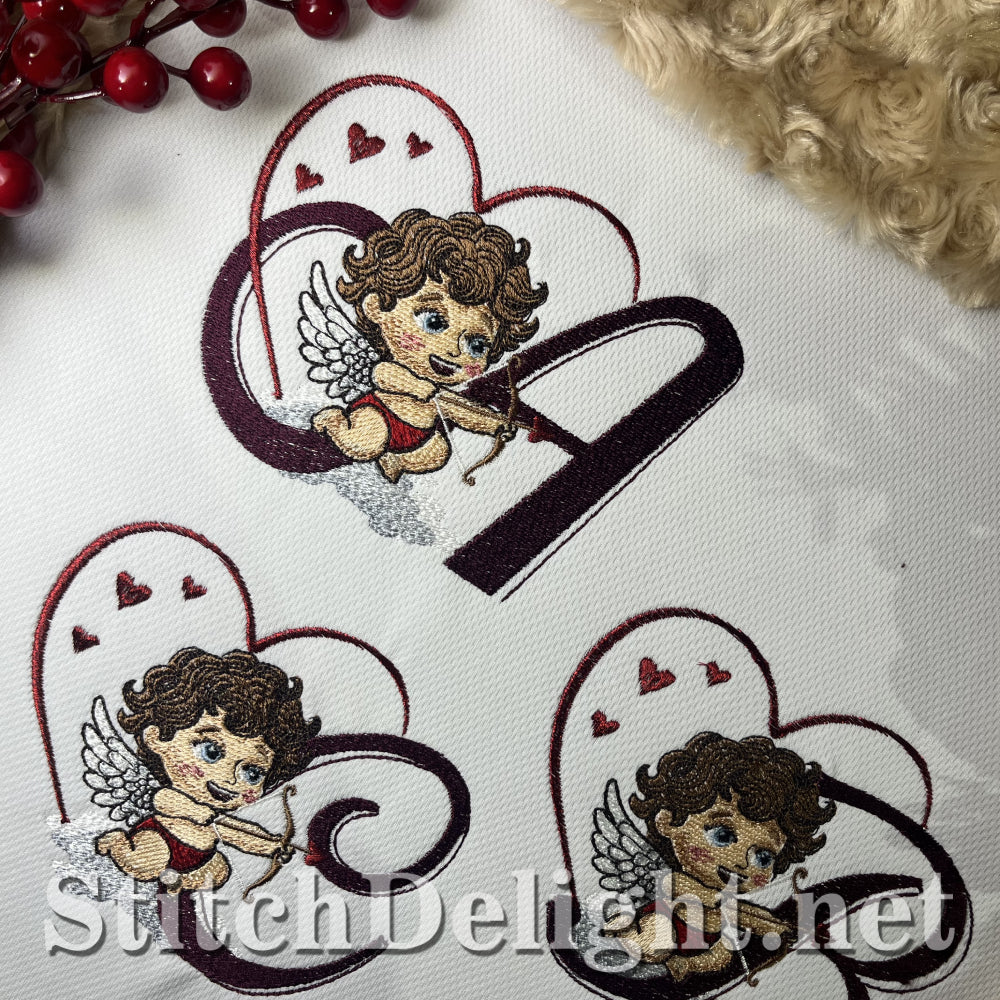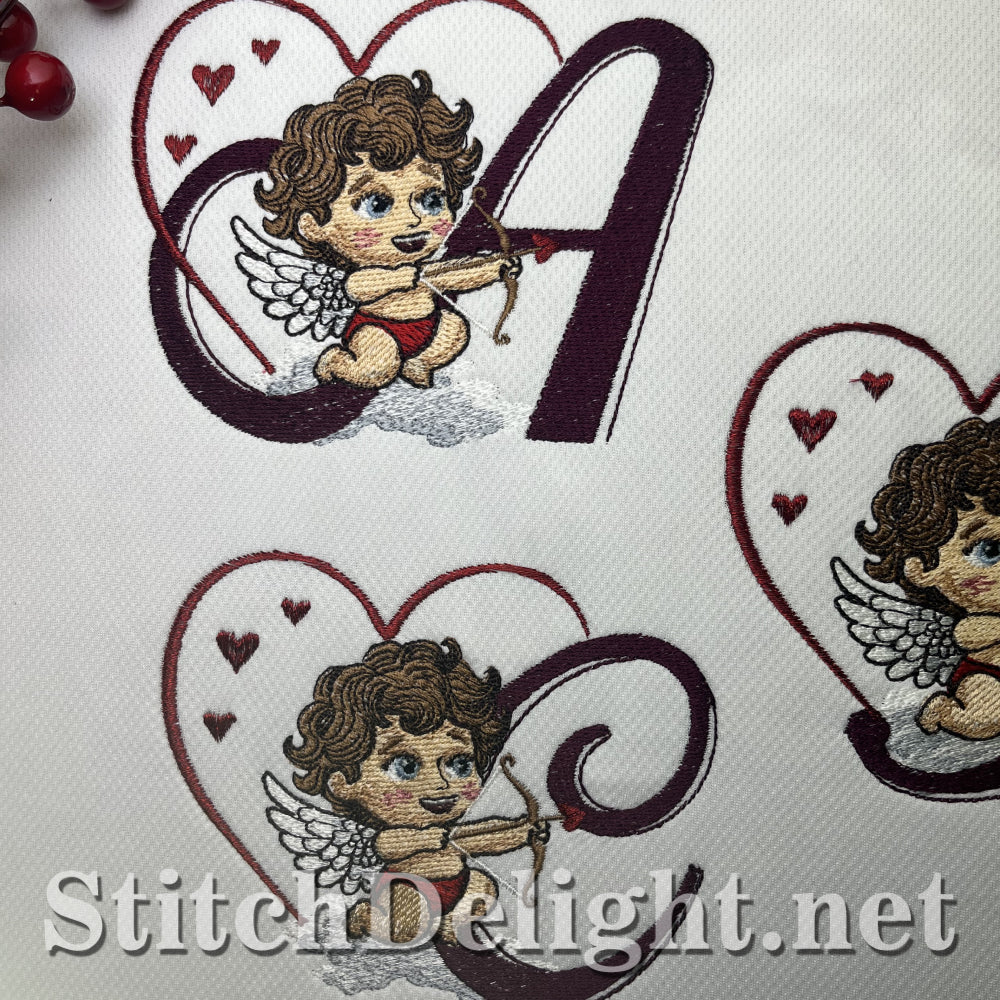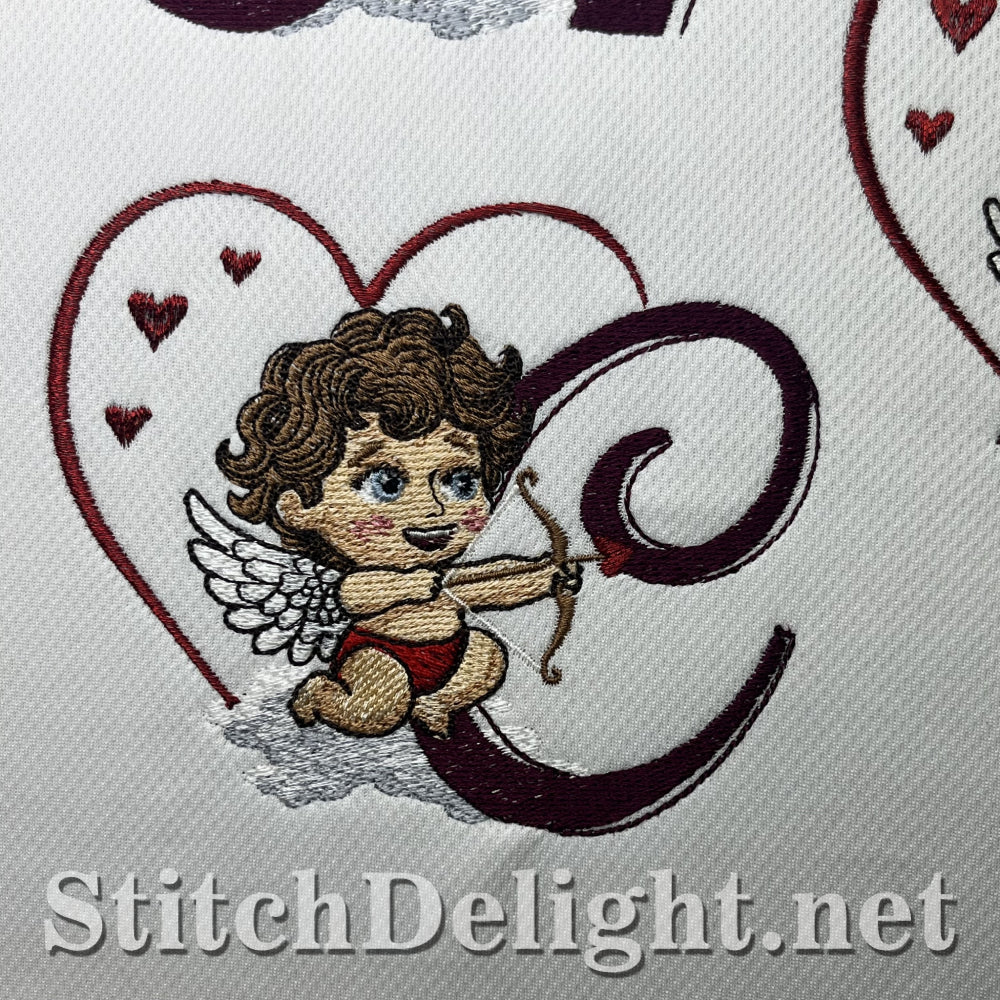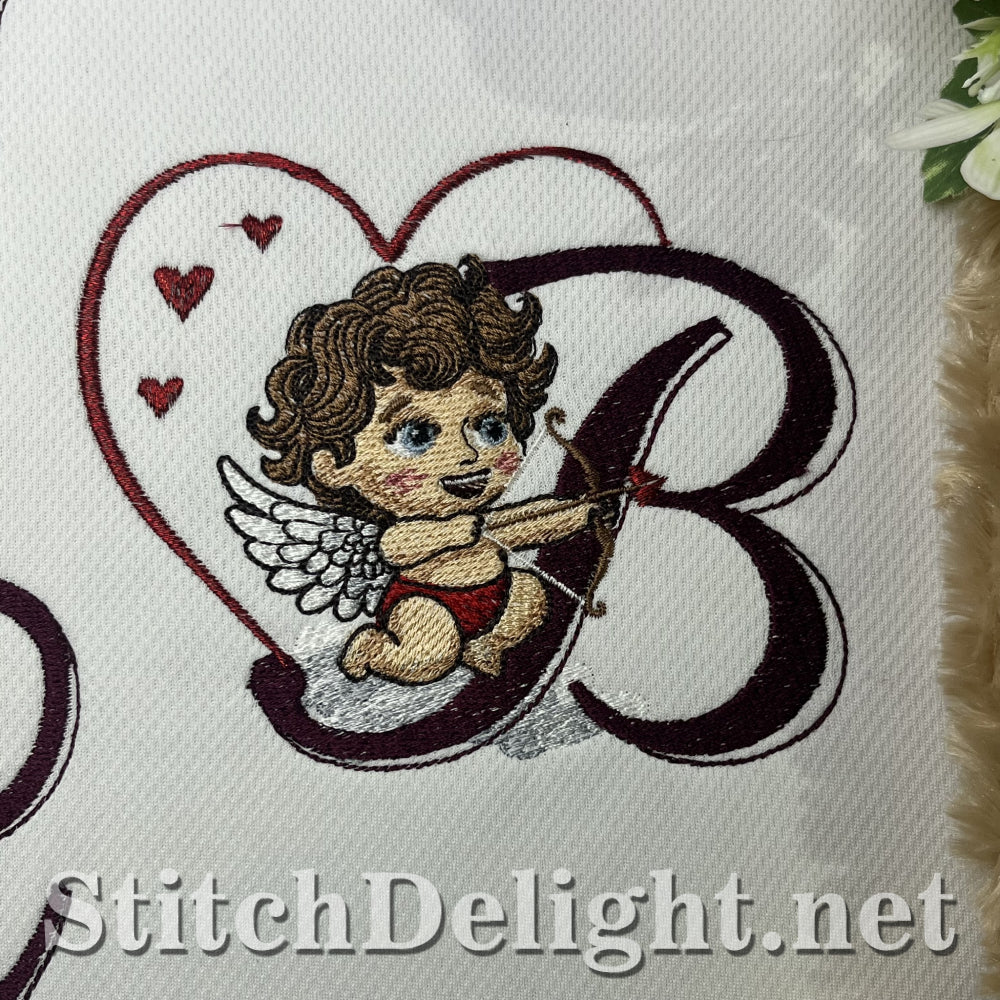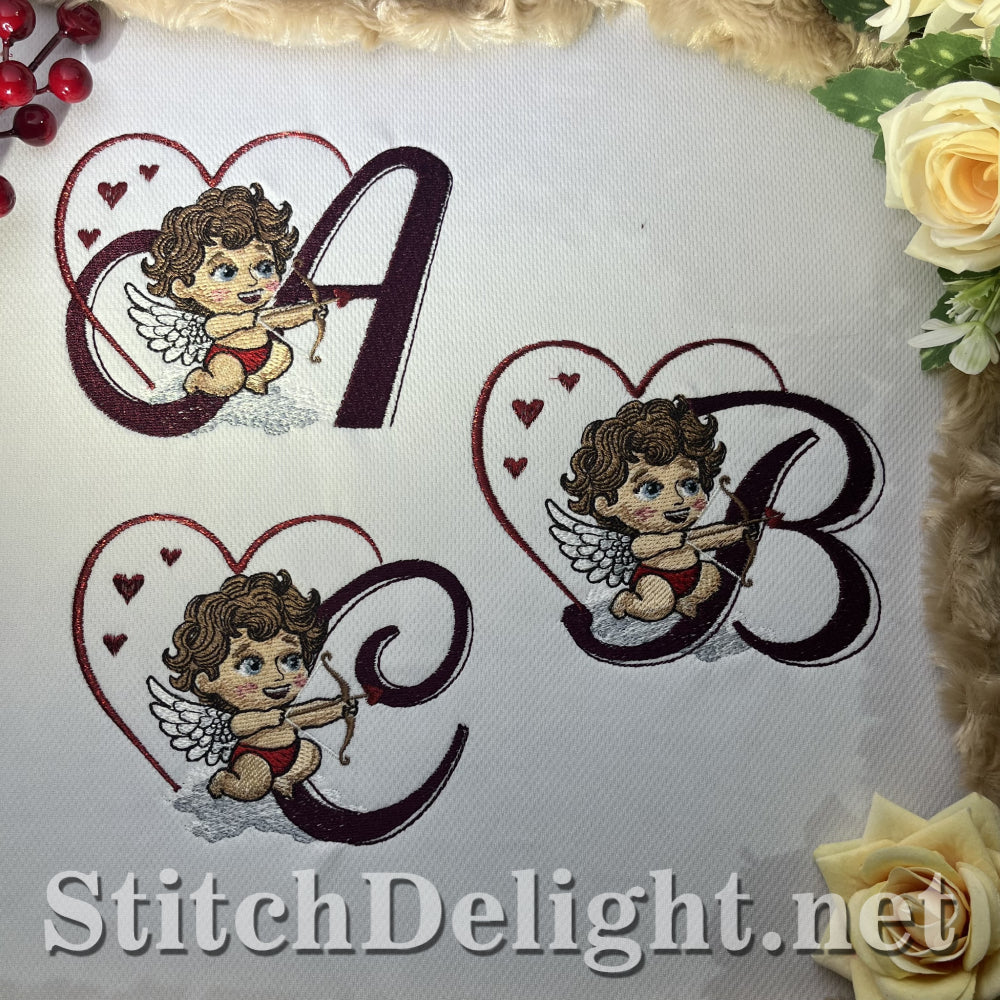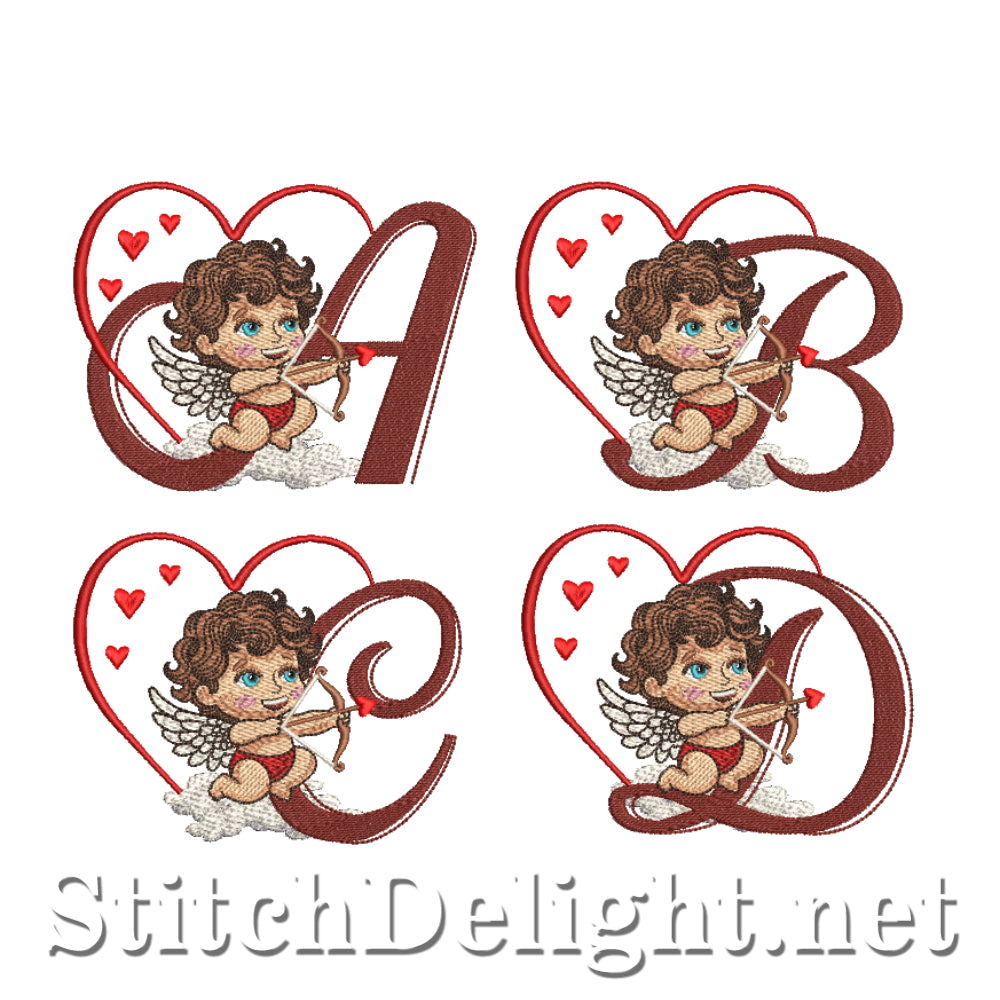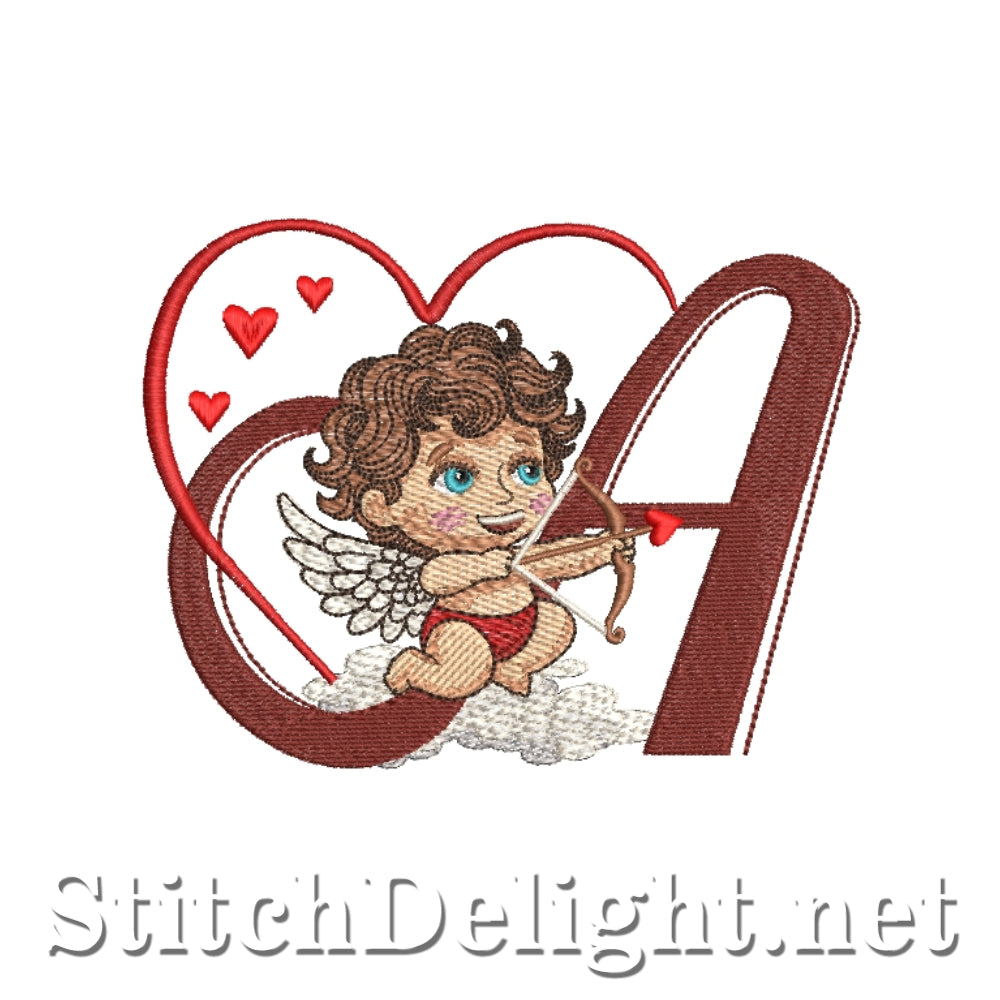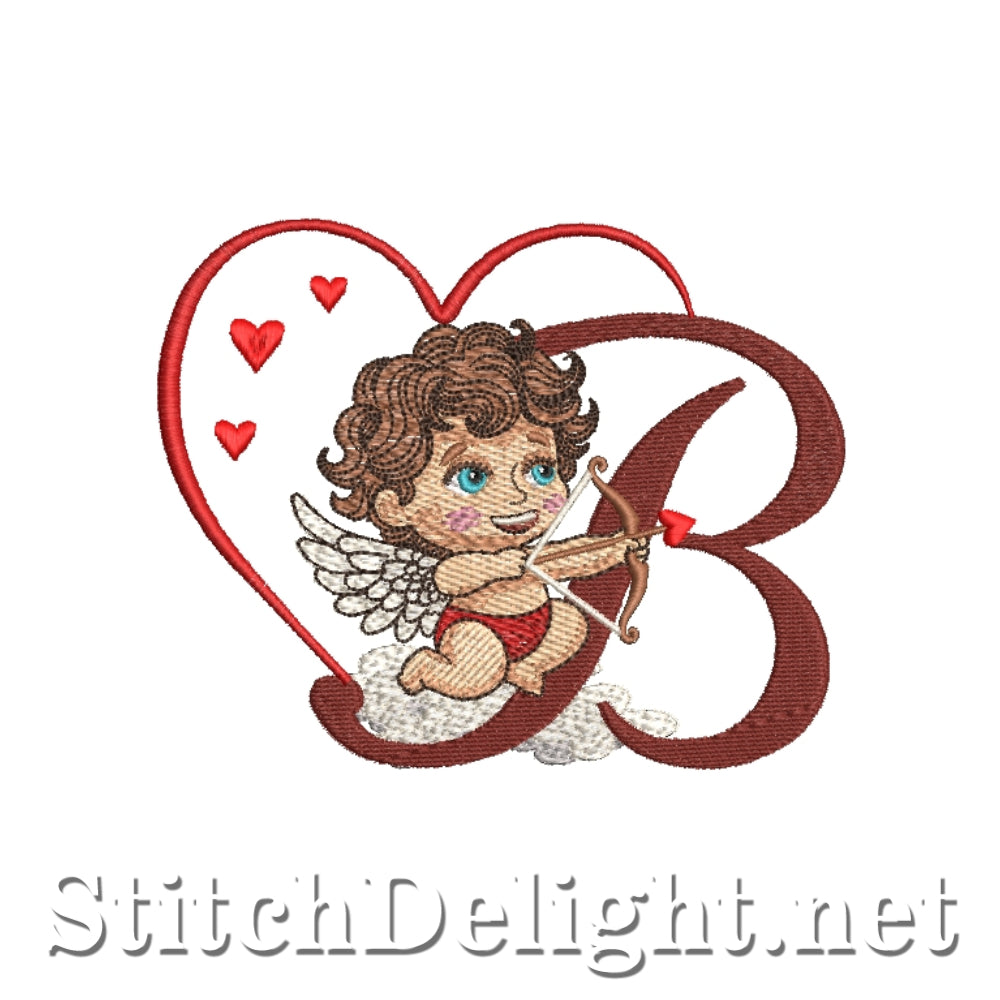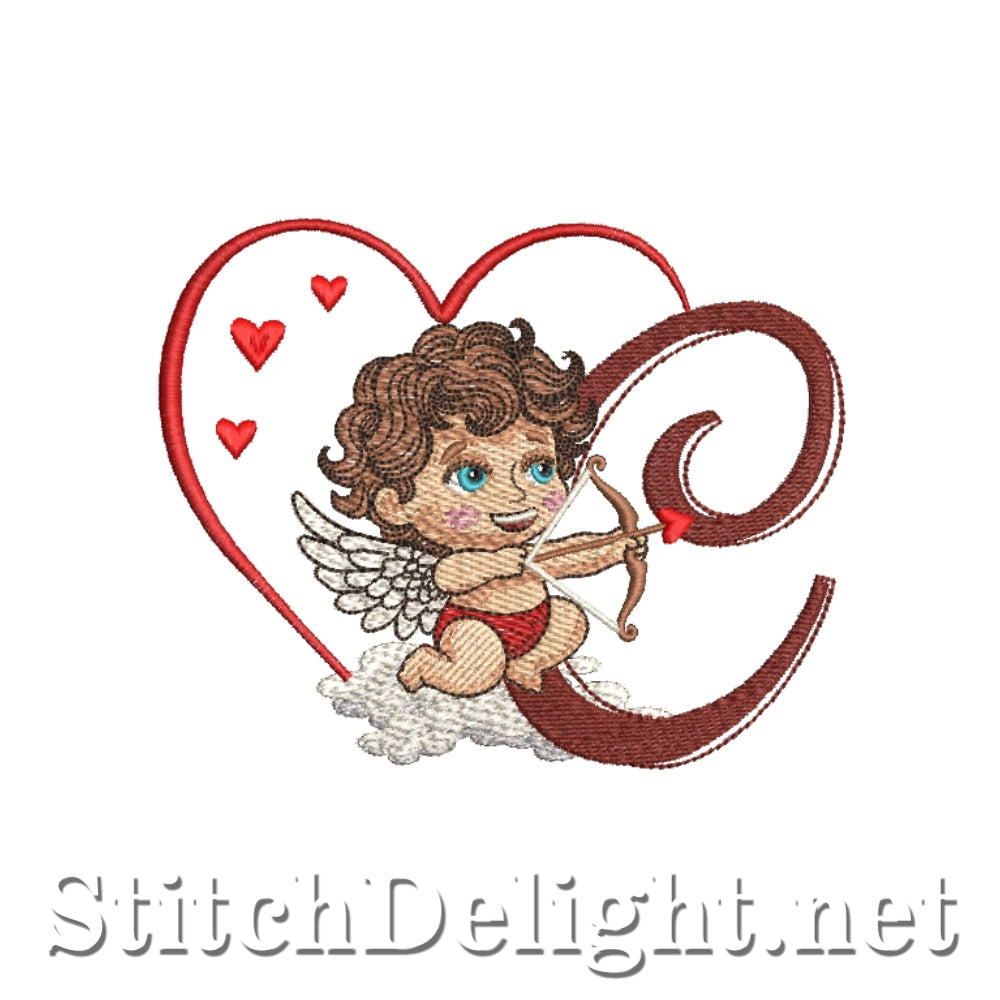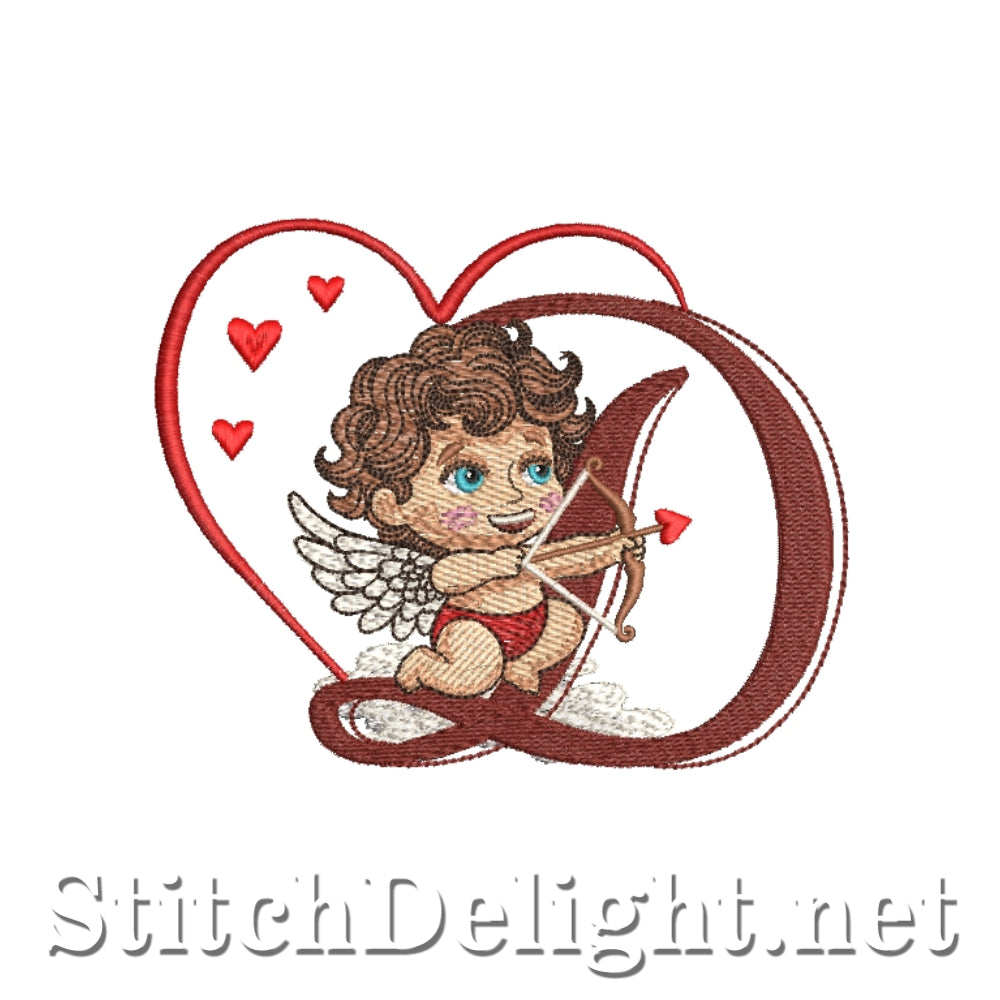
SDS3314 Cupid's Font
Decorate your special moments with this adorable font.
Whether
it's for weddings or special occasions with a loved one, this
stunning font features a baby cupid to spark romance.